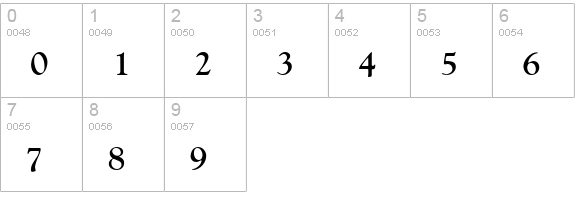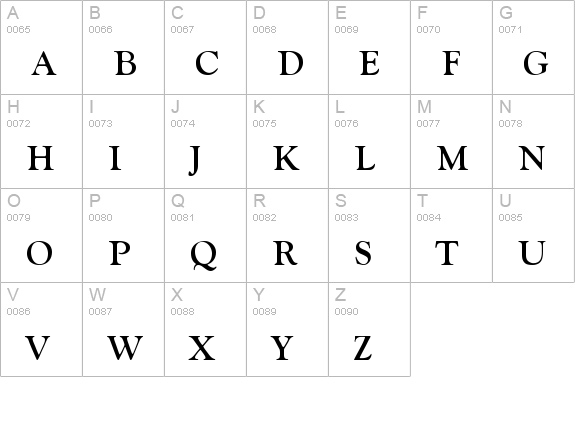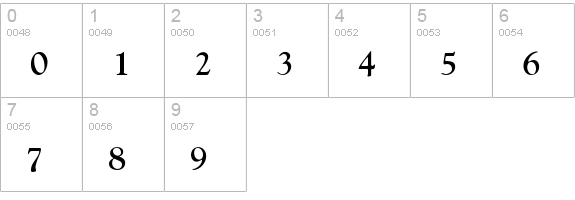
GoldenOldStyle Bold Font Details
GoldenOldStyle Bold is a strong, high-contrast variant in the GoldenOldStyle typeface family \xE2\x80\x94 well suited to headlines, attention-grabbing titles, and strong calls-to-action.
GoldenOldStyle Bold font is a timeless and elegant typeface that exudes sophistication and charm. With its classic serifs and bold strokes, this font is perfect for adding a touch of vintage flair to any project. Whether you're designing a wedding invitation, creating a logo, or crafting a poster, GoldenOldStyle Bold font will make your text stand out with its distinctive and refined look. The best part? GoldenOldStyle Bold font is available for free download at FontsMarket.com, making it easily accessible for all your design needs. Embrace the timeless beauty of this font and elevate your projects with its classic appeal.